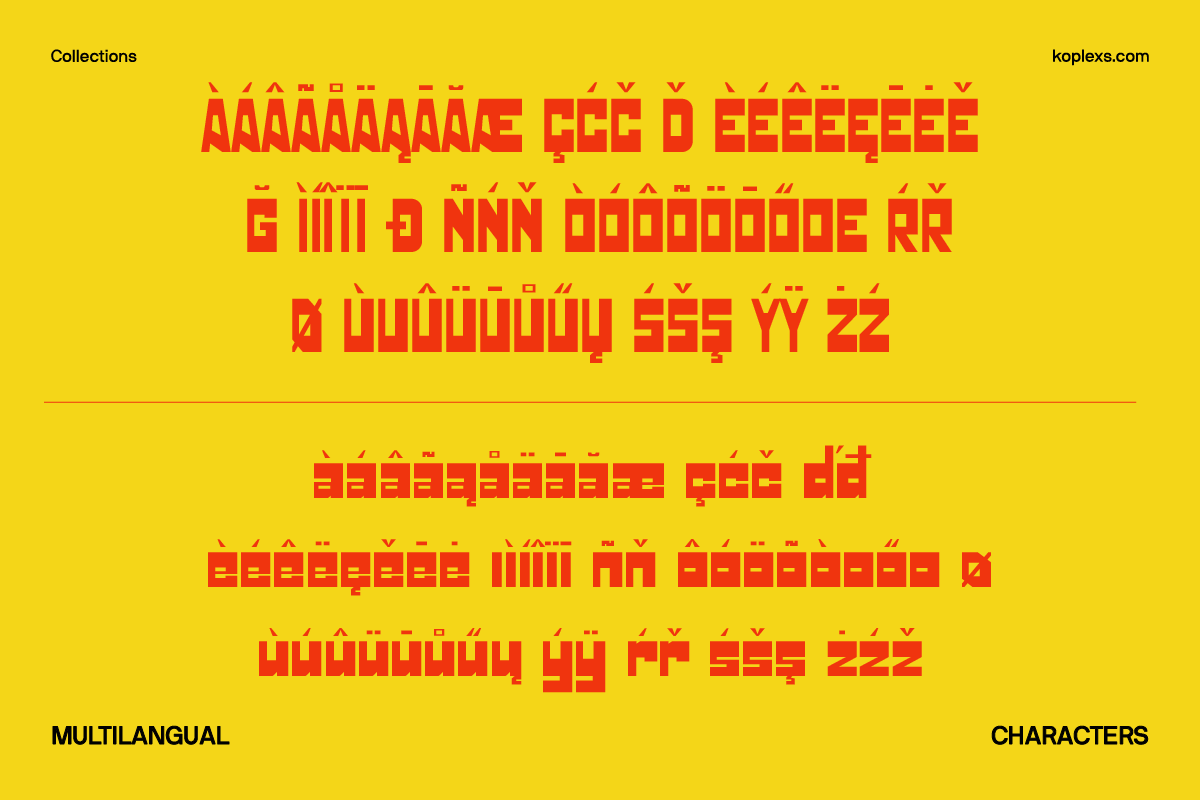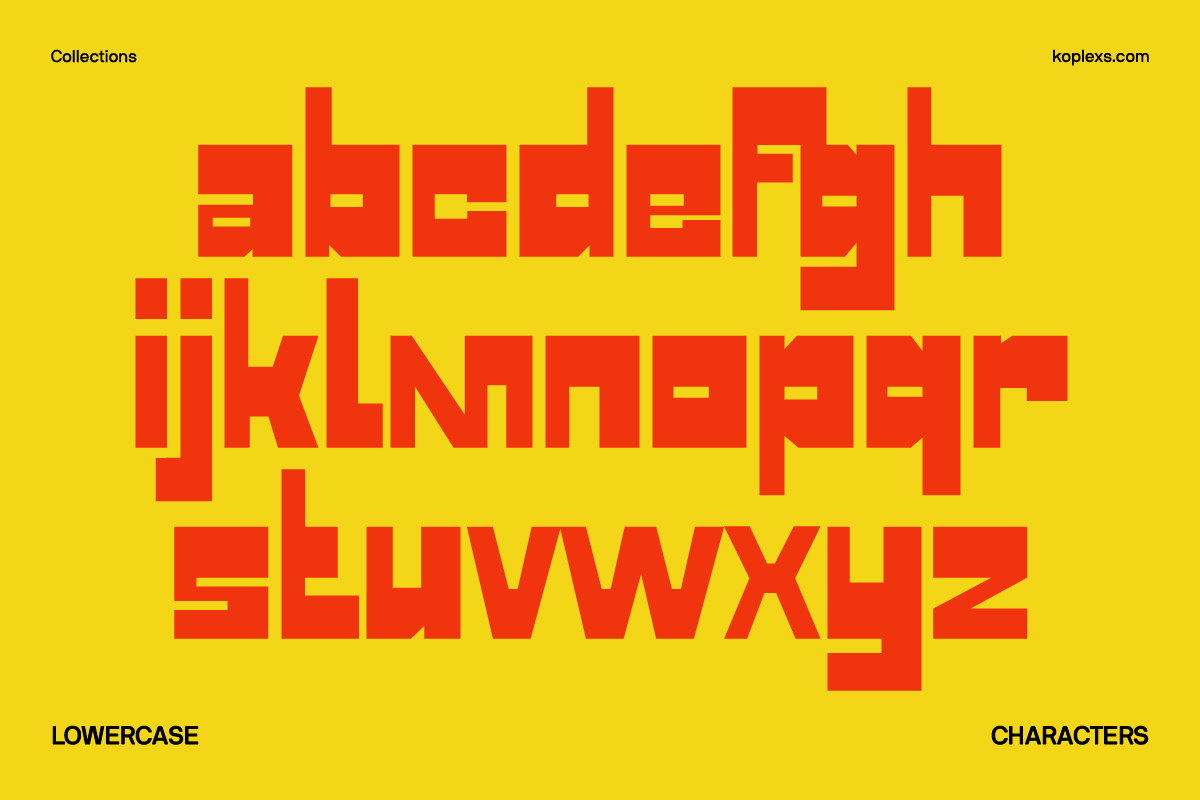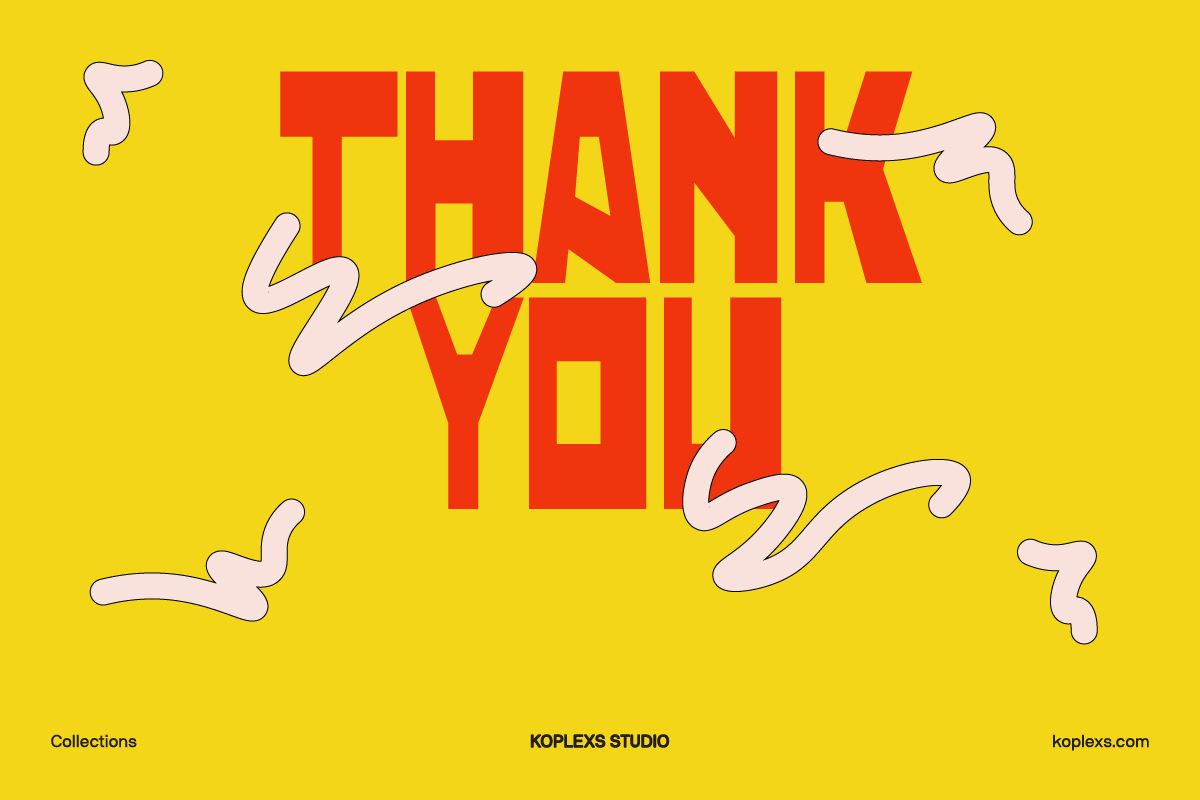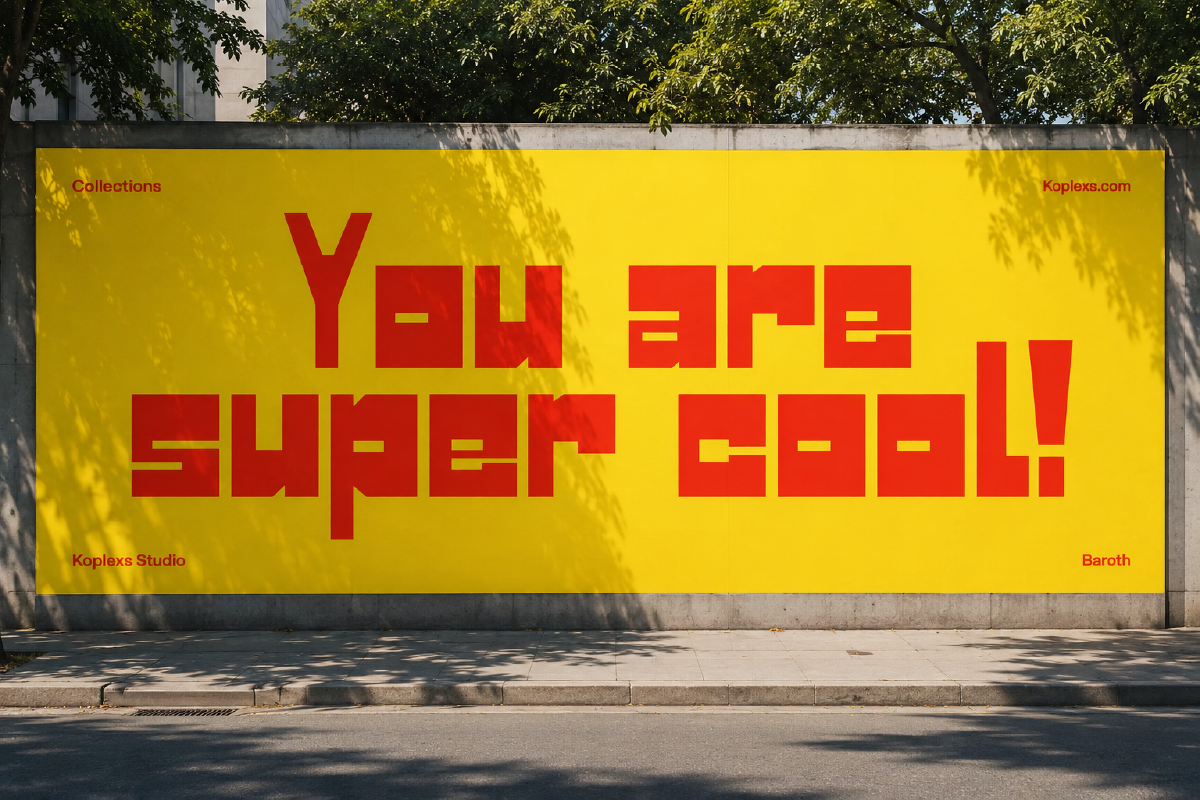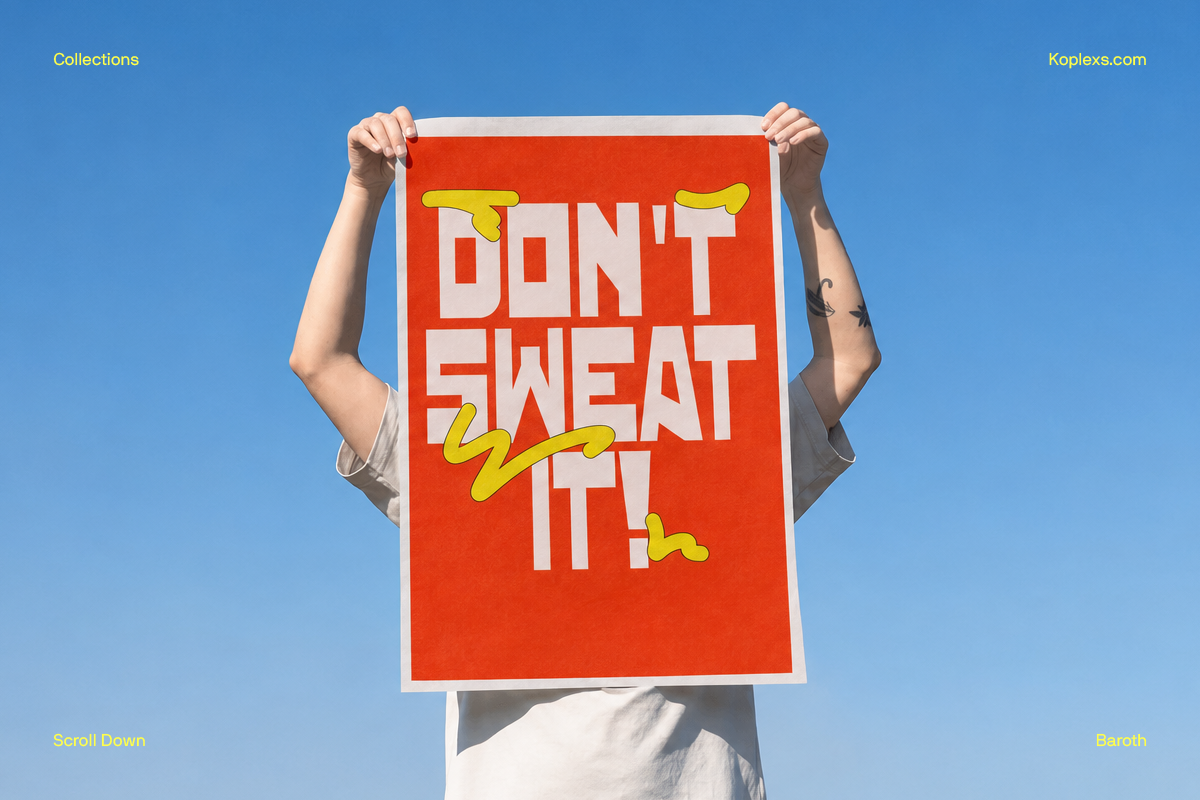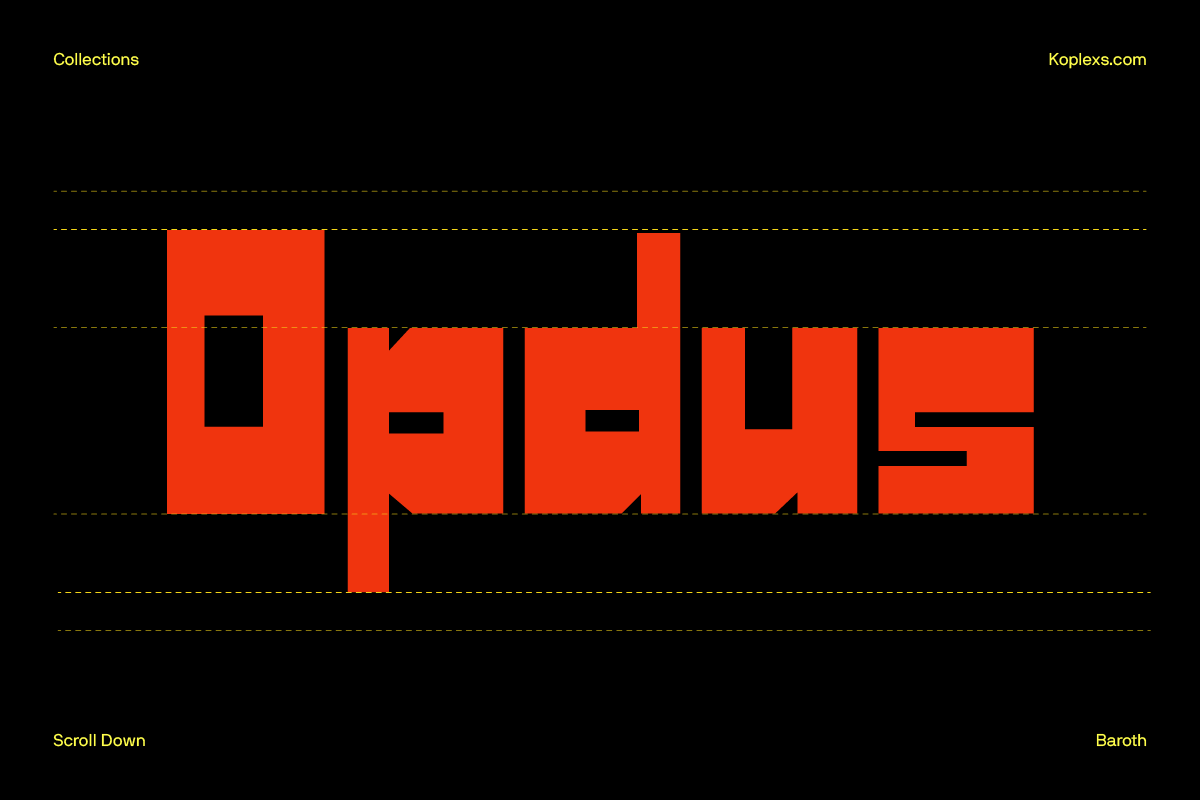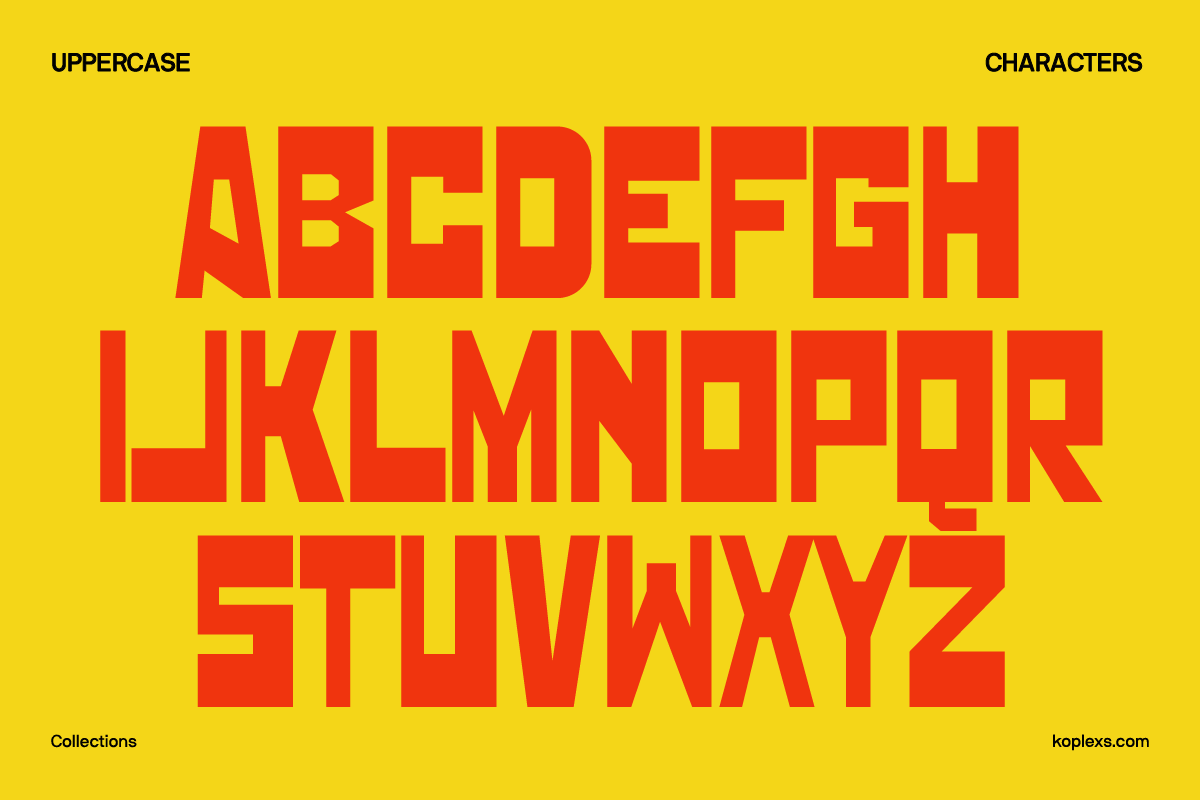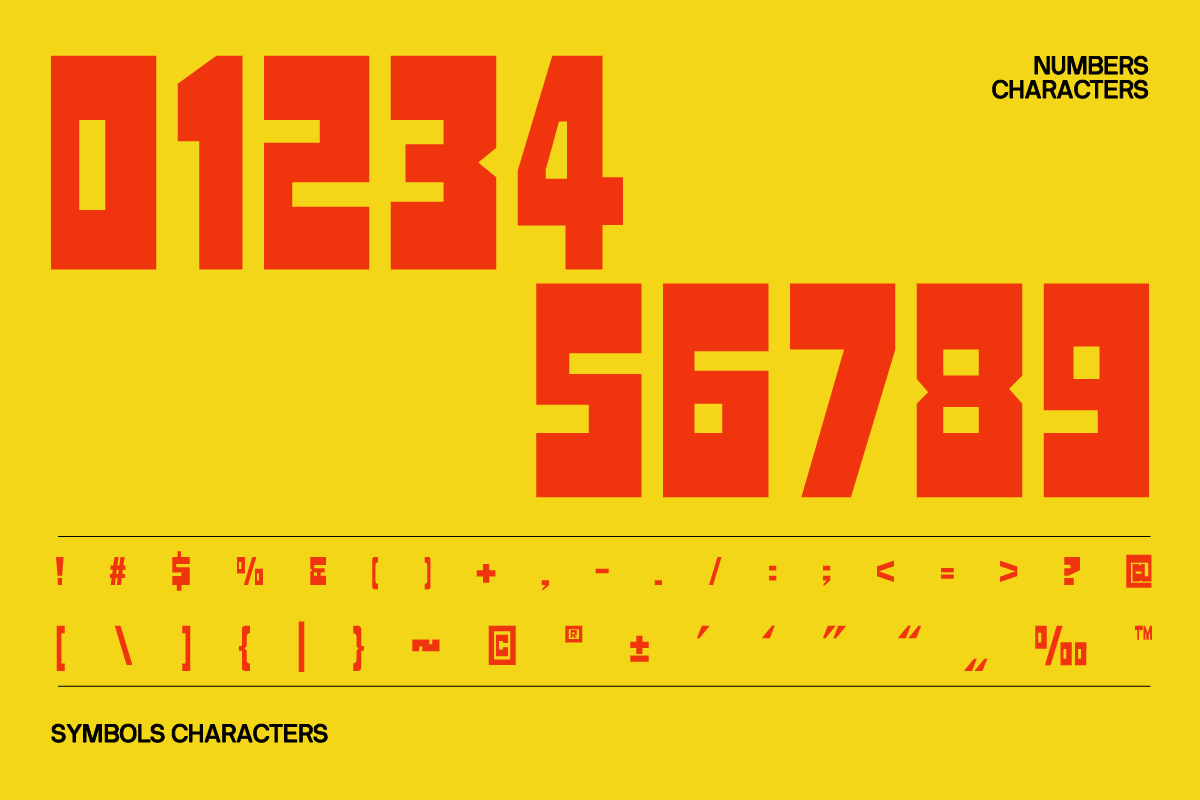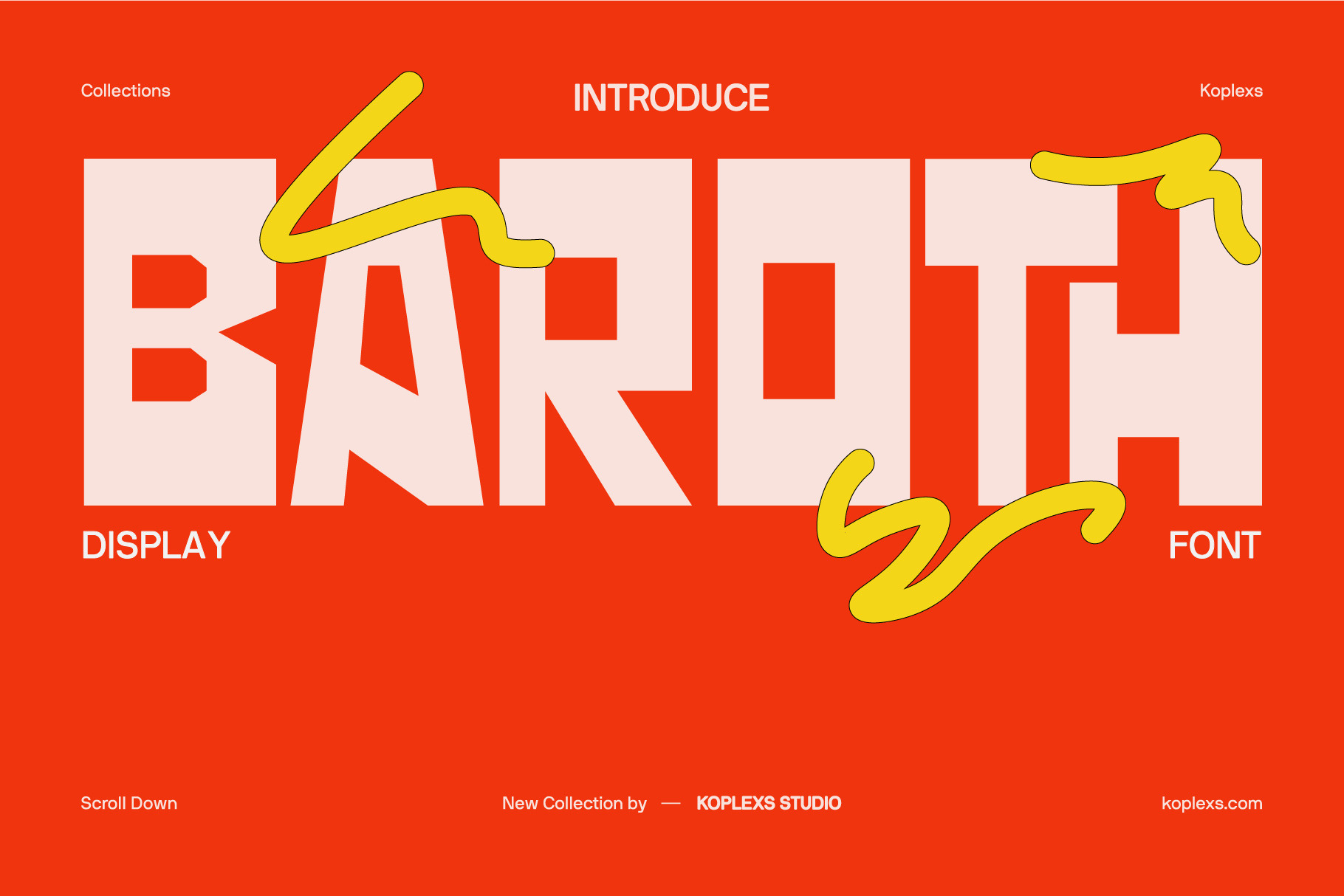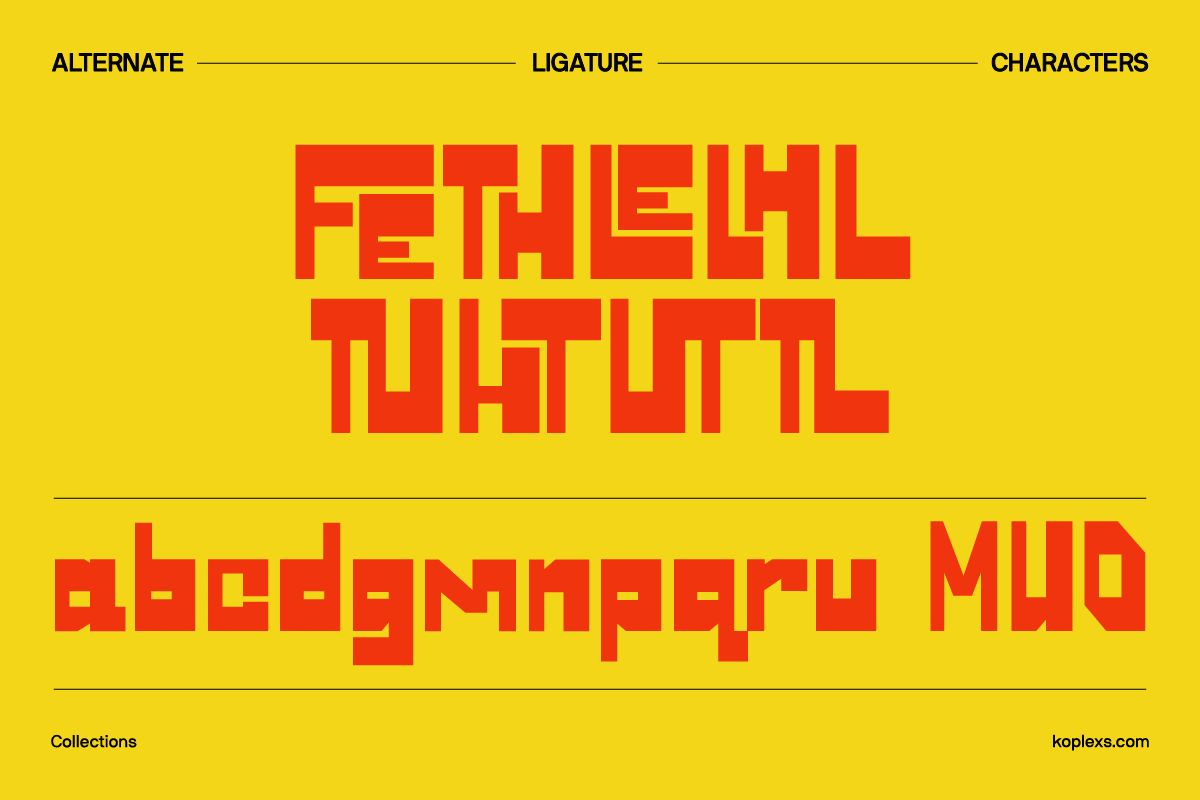
Baroth Font | Bold Display Typeface
Meet Baroth Font, a bold display font made to grab attention.
Baroth features chunky letterforms, condensed proportions, and a powerful visual style that gives every word a confident presence. Its strong shape and playful character make it an excellent choice for designers who want typography to become the main focus of the design.
Whether you are working on a striking poster, modern brand identity, streetwear graphic, or bold packaging concept, Baroth Font helps your message feel louder, stronger, and more memorable.
Ligatures & Alternate Fiture
Standard & Multilingual glyphs
Baroth works especially well when you need big typography, strong contrast, and an unmistakable personality without making your design feel overly complicated.